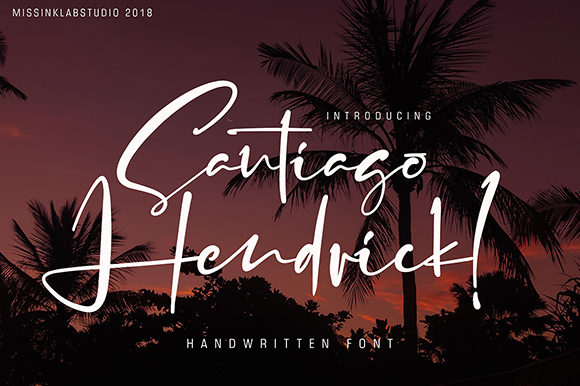
Are you in search of a font that exudes charisma and elegance? Look no further than Santiago Hendrick, a stunning handwritten font that effortlessly adds a touch of vintage charm to your designs. This font's graceful strokes evoke the nostalgic allure of the 1980s, giving your projects an instant retro appeal.
With its light and airy personality, Santiago Hendrick is a versatile font that can adapt to a variety of design styles. Whether you're working on a wedding invitation, a branding project, or a social media campaign, Santiago Hendrick will add a touch of sophistication and charm. Its unique character shines through in both digital and print formats, making it a perfect choice for both personal and professional projects.
Embrace the allure of Santiago Hendrick and let your creativity soar. Its captivating handwritten style will transform your designs into works of art. From logos and branding materials to social media posts and website designs, Santiago Hendrick will add an unforgettable touch that captivates and engages your audience.
Unlock the potential of Santiago Hendrick today and experience the difference it can make to your design projects. With its timeless appeal and effortless charm, this font is sure to become a favorite in your creative arsenal.